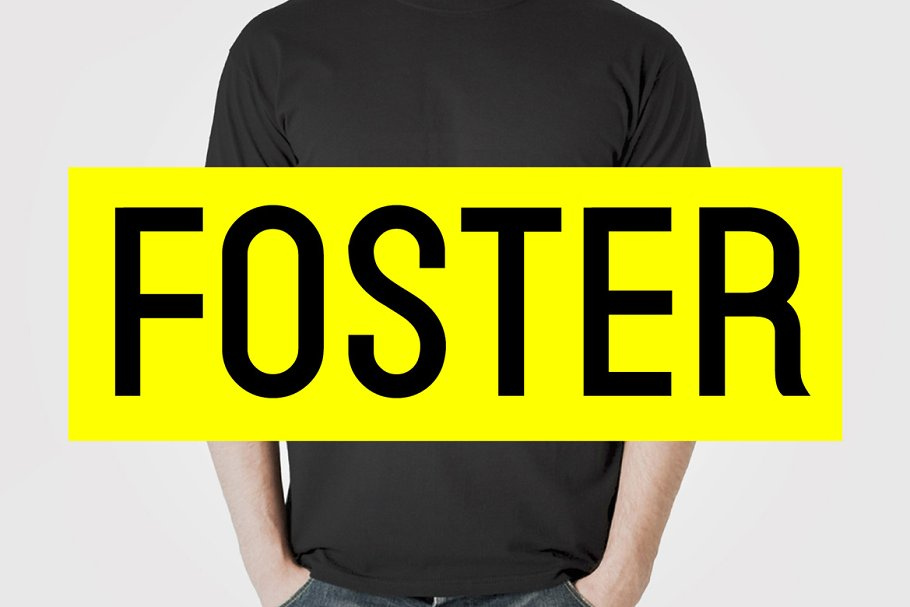
Foster Font
Foster Font is perfect for nurturing childcare services, compassionate adoption agencies, supportive community organizations, caring educational institutions, mentorship program branding, and developmental support services. Its nurturing character makes it ideal for family counseling centers, youth development programs, foster care organizations, social work agencies, therapeutic support services, and any project requiring protective care with genuine compassion and supportive community spirit.
This font is exciting because it embodies the spirit of nurturing care and protective support while delivering exceptional functionality for organizations dedicated to helping others grow and thrive. The warmly crafted letterforms evoke feelings of safety, guidance, and unconditional support, creating powerful emotional connections that resonate with audiences seeking genuine care, professional guidance, and the transformative power of supportive relationships in personal development.
The Foster Font family typically includes Light, Regular, Medium, and Bold weights with caring alternates, supportive ligatures, and nurturing decorative elements that enhance its protective personality. This comprehensive collection provides social service professionals with compassionate tools for creating trustworthy brand systems that maintain caring authenticity while offering flexibility for various support applications requiring genuine empathy and community-focused positioning.
Whether you're developing identity systems for family service organizations, creating materials for youth mentorship programs, or designing communications for supportive community initiatives, Foster Font Free Download delivers the nurturing care and protective warmth that connects with families and individuals seeking support and guidance. Its caring presence ensures trusted brand recognition across digital platforms and print materials, making it perfect for websites, mobile applications, and community campaigns that celebrate protective care, supportive relationships, and the life-changing impact of nurturing guidance with authentic compassion and contemporary social service excellence.